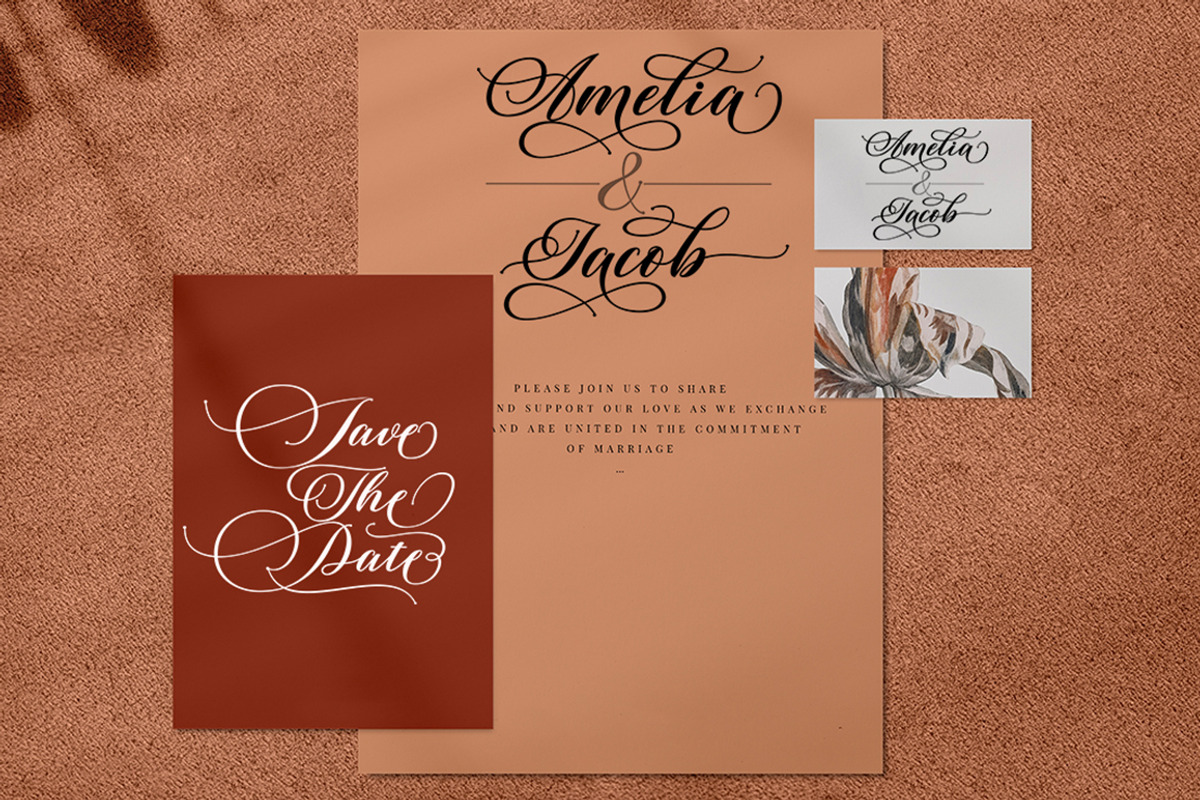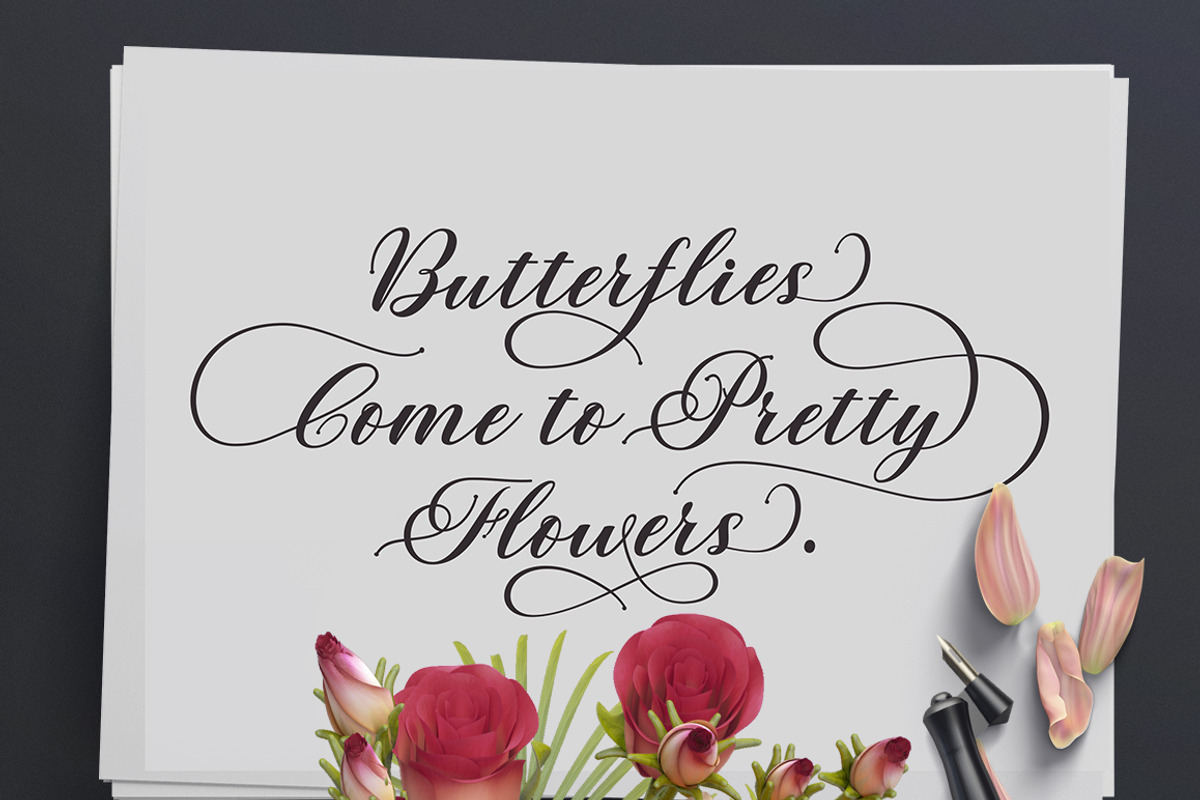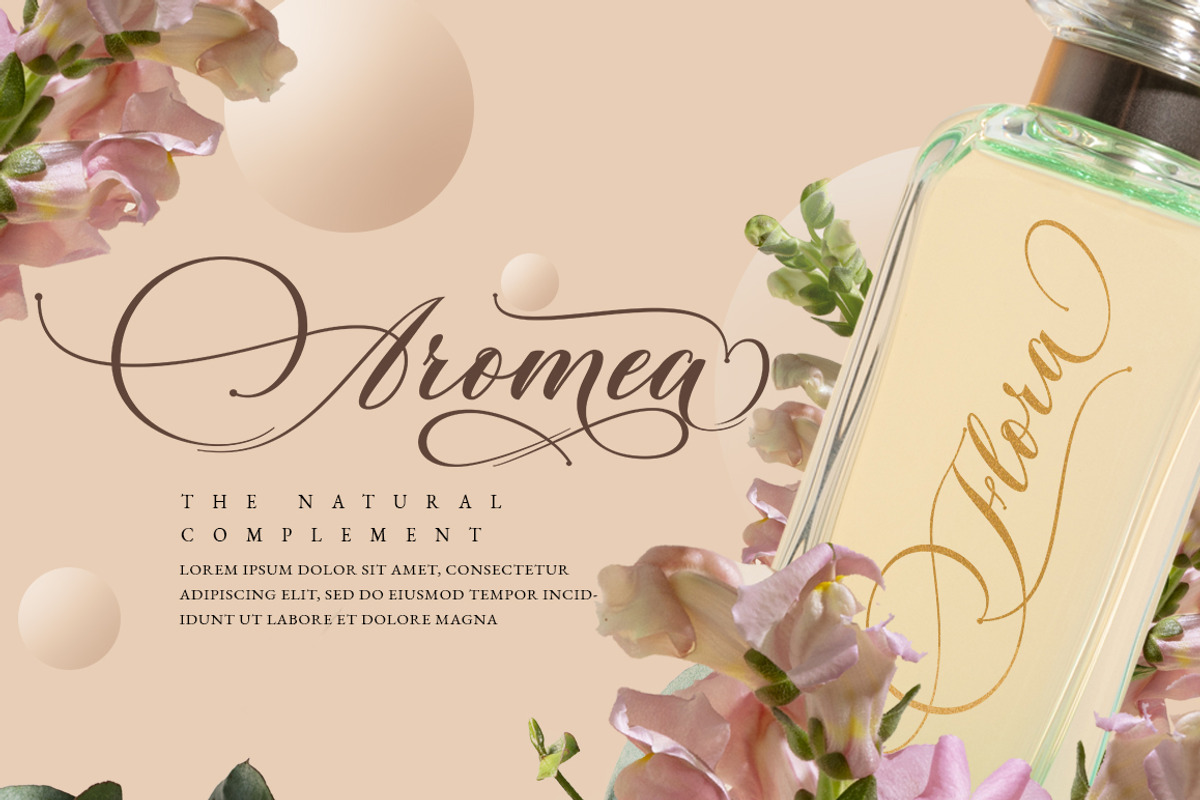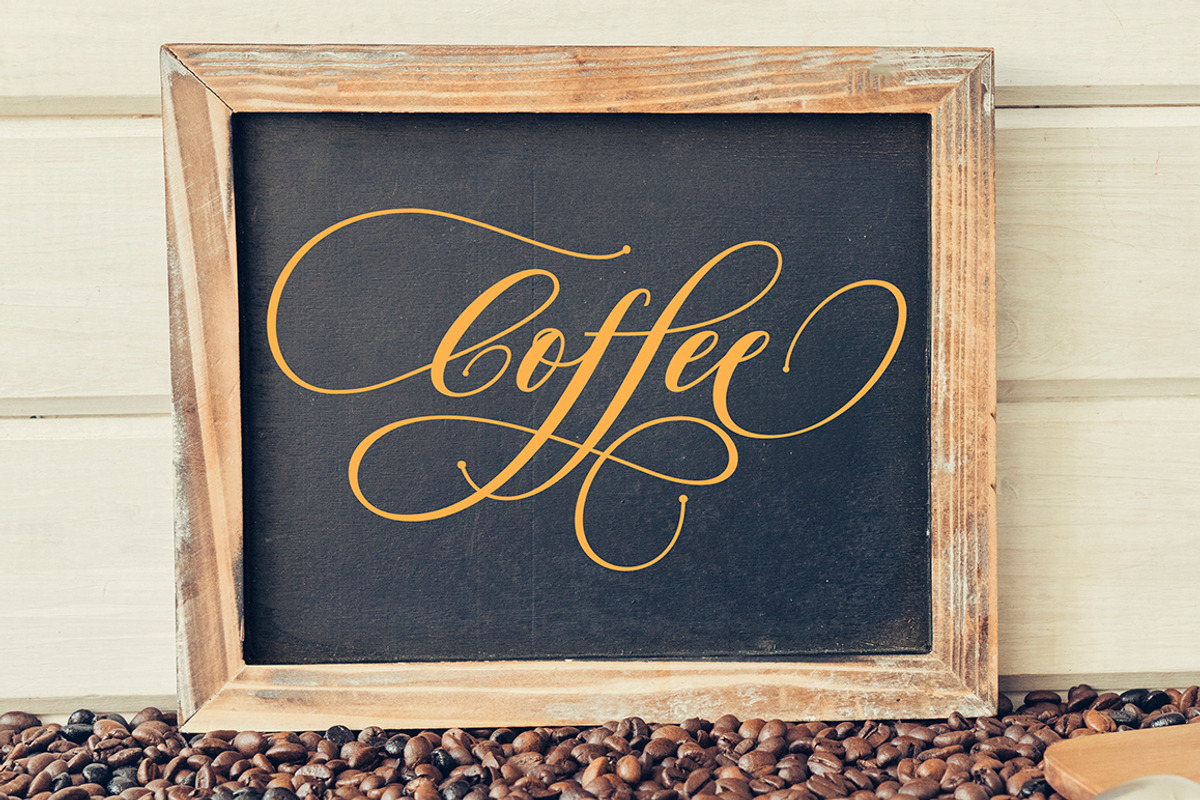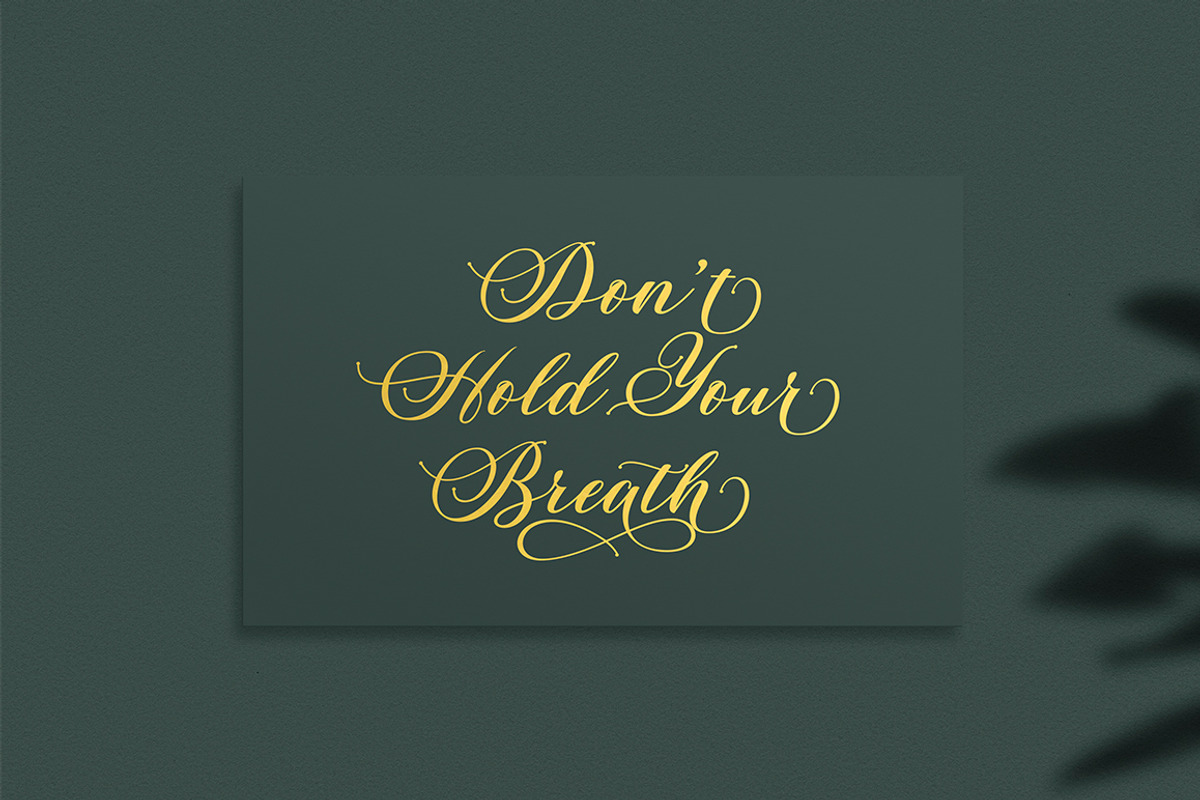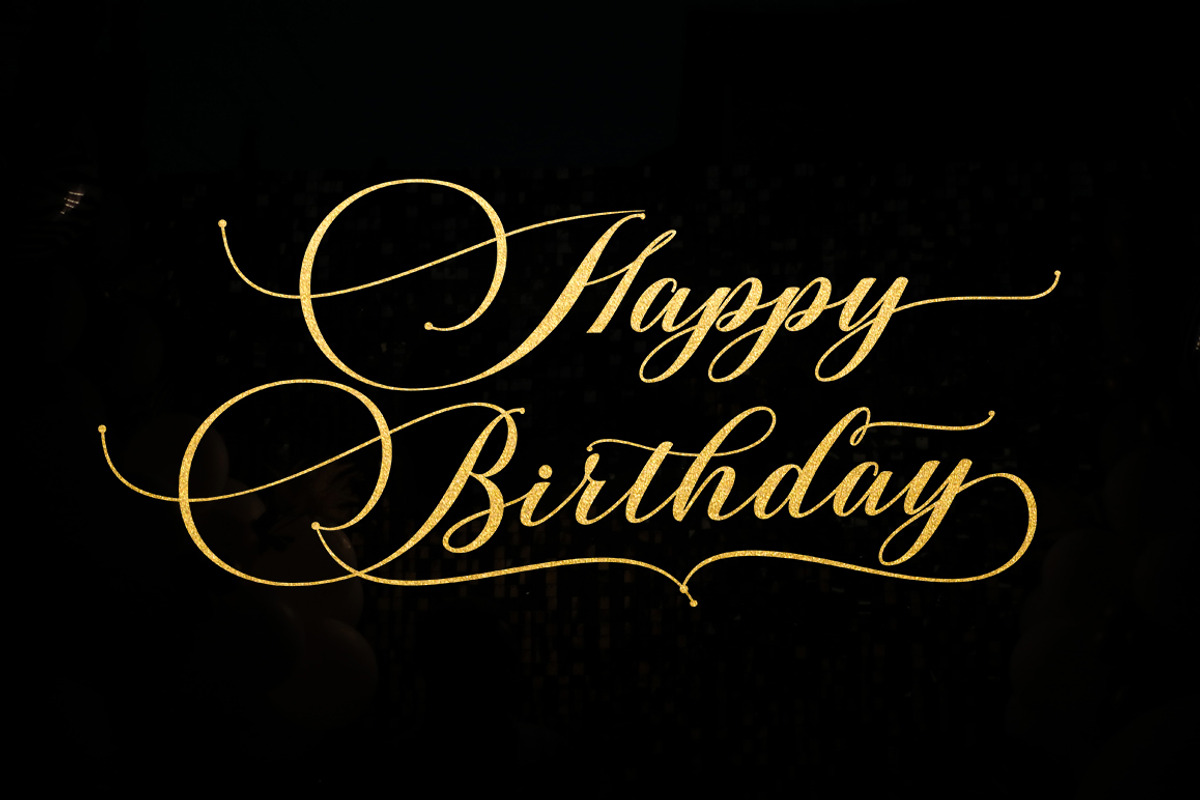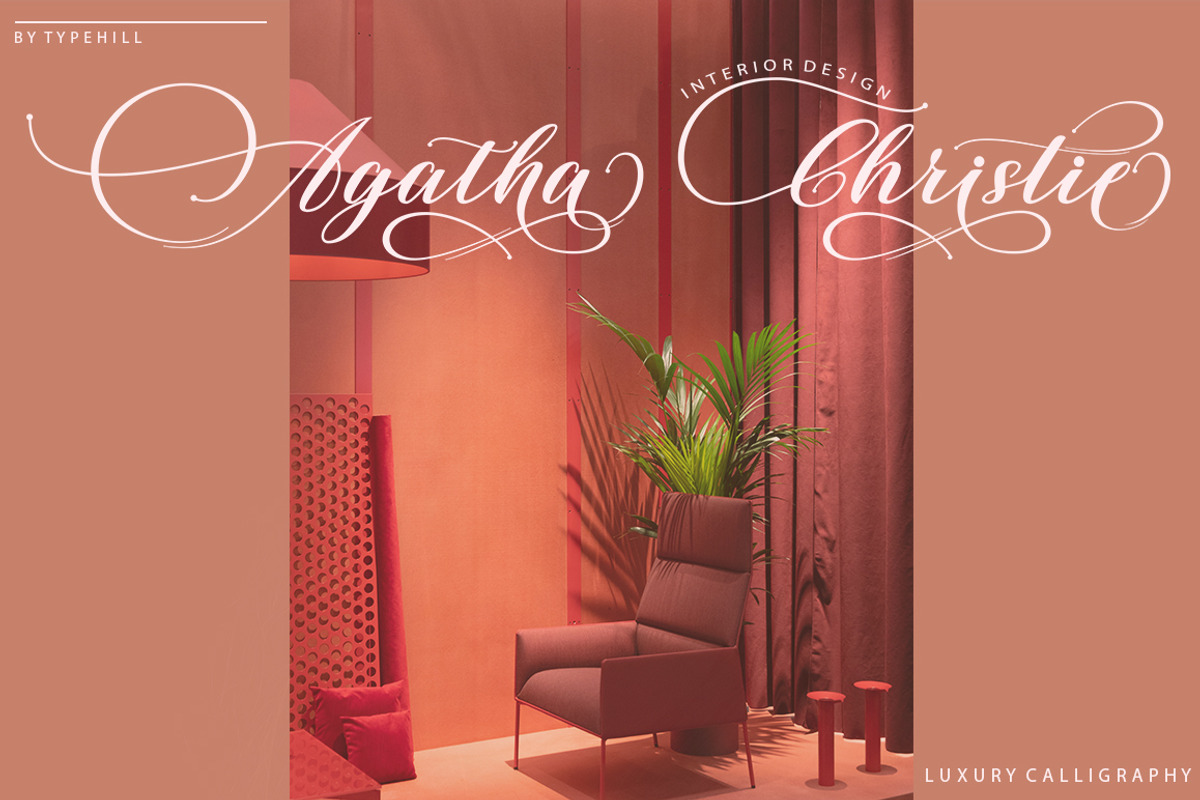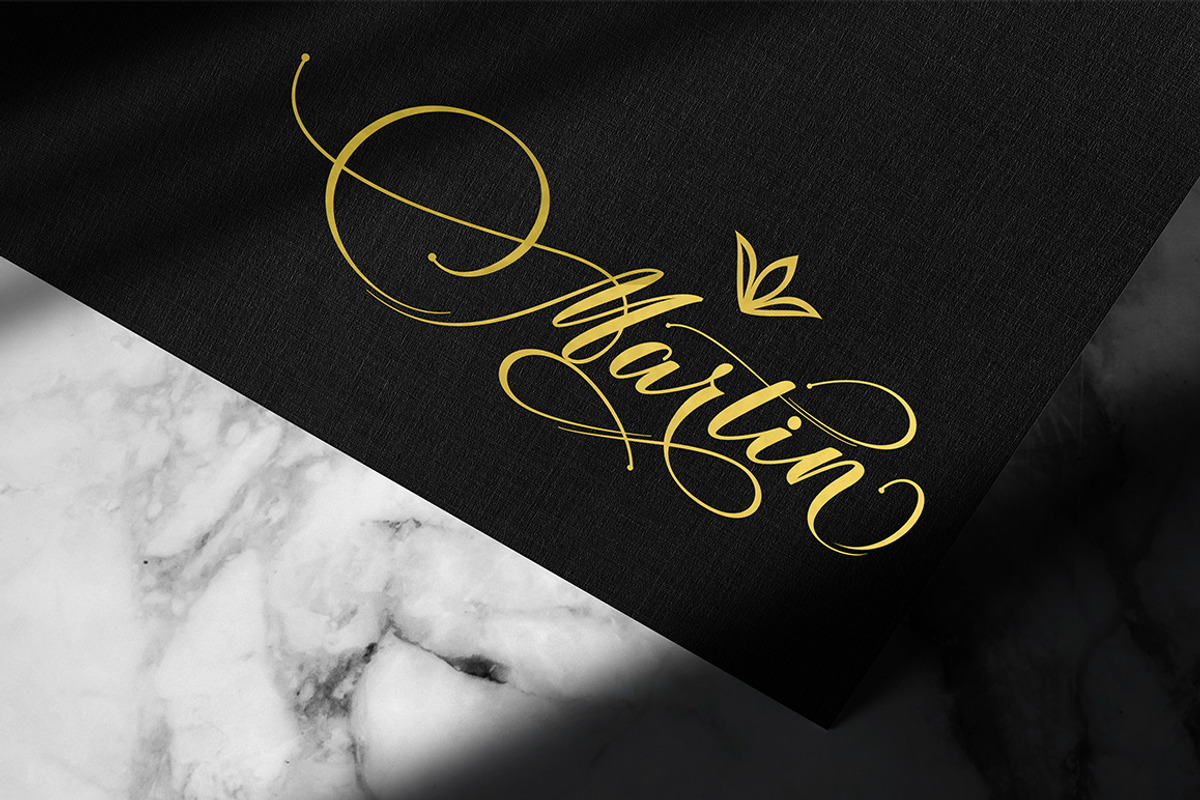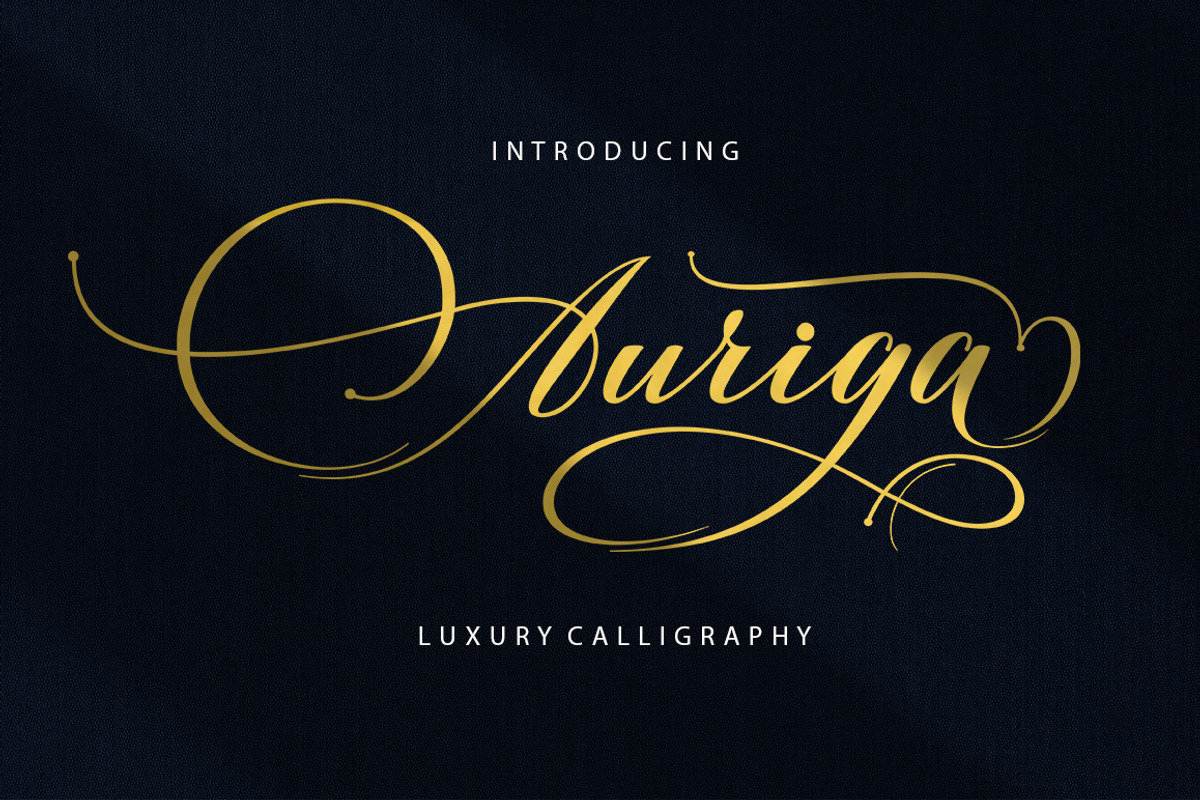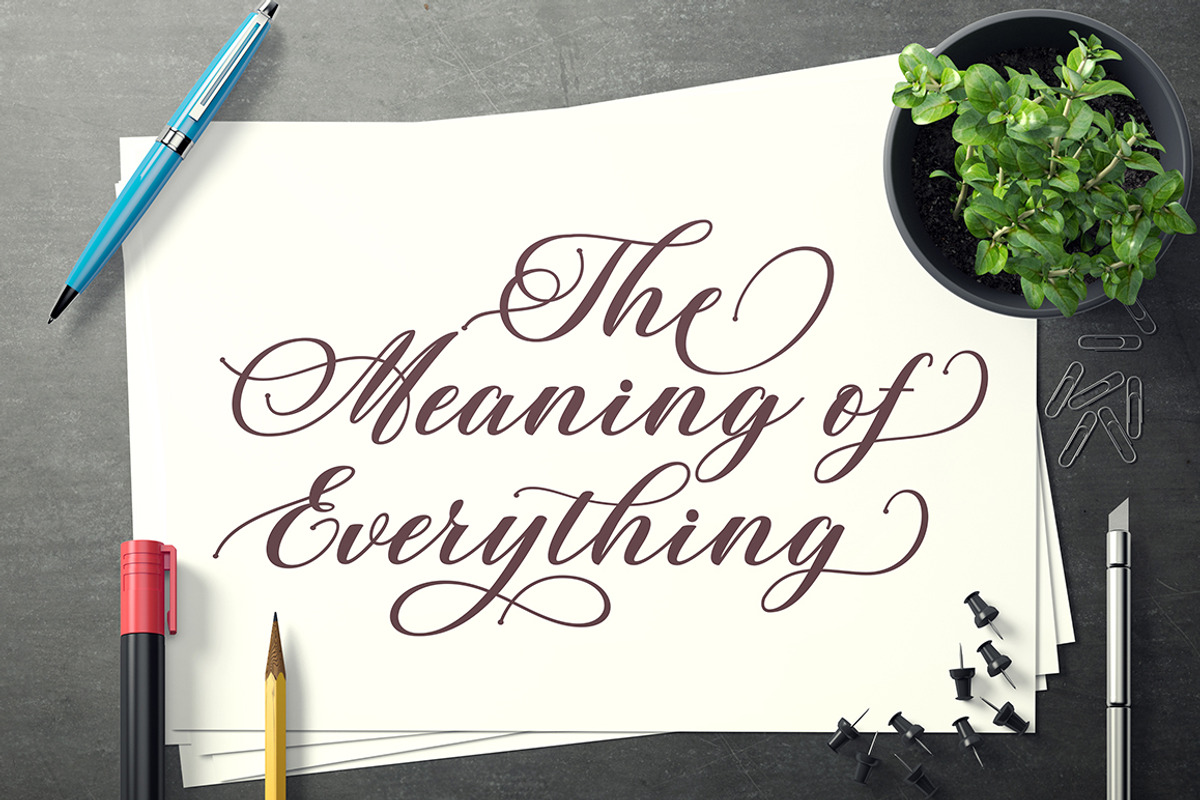
Auriga
Preview Text The quick brown fox jumps over the lazy dog Auriga Example 1 of Font More information about this Font Auriga is a calligraphy script font that comes with beautiful alternative characters. a mixture of copper calligraphy with handleting style. Designed to bring style elegance. Auriga attracts such a subtle, clean, feminine, sensual, glamorous, simple and very readable typeface. The classic style is perfect to apply in various formal forms such as invitations, labels, menus, Logos, fashion, make up, stationery, letterpress, romantic novels, magazines, books, greeting / wedding cards, packaging, labels.
Auriga has 671 glyphs. including multiple language support. With OpenType features with stylish alternatives, ligatures and characters, allowing you to mix and match pairs of letters to fit your design, as well as a touch of ornament to make this font look elegant.